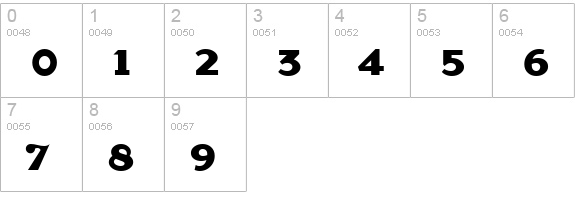
DogmaBold Bold Font Details
DogmaBold Bold is a strong, high-contrast variant in the DogmaBold typeface family \xE2\x80\x94 well suited to headlines, attention-grabbing titles, and strong calls-to-action.
DogmaBold Bold font is a striking and powerful typeface that demands attention with its sharp angles and bold strokes. This font exudes confidence and strength, making it perfect for headlines, titles, and other attention-grabbing text. What sets DogmaBold apart is that it is available for free download at FontsMarket.com. This means that you can easily add this eye-catching font to your design projects without having to worry about any additional costs. With its bold and impactful appearance, DogmaBold Bold font is sure to make a statement in any design you choose to use it in.